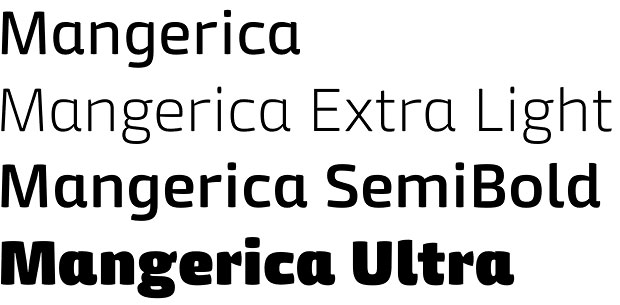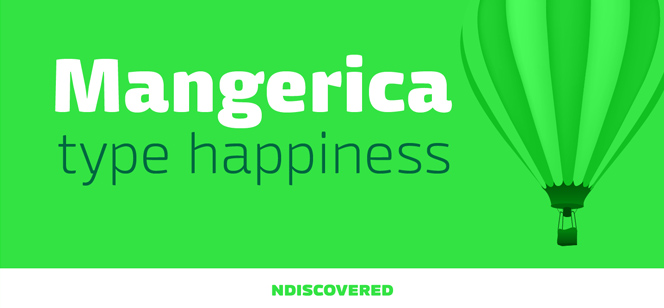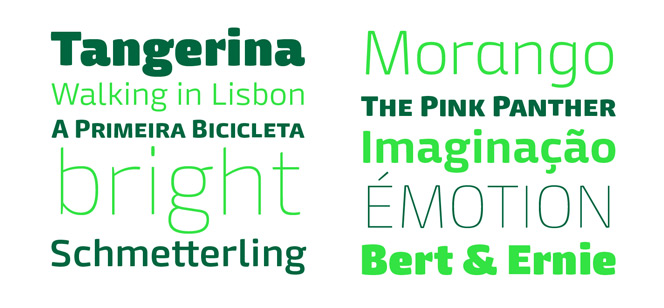
Mangerica font
Mangerica font is a sans-serif family represented in 9 weights. From Thin to Ultra Black Mangerica shows a skillful blending of different typographic styles – elegance, geometry and pure letterforms in light weights – while at the other end of the range we see high contrast ultra blacks with very distinguishable humanistic elements accompanied by naïve, cartoon-like look. All in all Mangerica is very recognizable typeface with excellent legibility throughout all weights and especially in the mid-range where the large x-height and low contrast make this font very easy-to-read even in very small sizes.
Mangerica is a font family with diverse use – from corporate web-site to editorial design Mangerica will be your best partner. This charming family is also appropriate choice for strong headlines, packaging, posters and t-shirts. Use the extra black weight for strong and prominent singe words e.g. brand names, logos etc., while the Thin & Light outlines will be your best choice for large text paragraphs or elegant headlines. A combination between Thin & Extra Black could be a very artistic solution no matter which of the outlines would dominate in your composition. The Mid-outlines will make your work with lots of text easier than expected. Add more diversity in your work by using a set of different OpenType features like small caps, ligatures, alternates, old style figures, and many other more.
We definitely miss the Italics here but we are optimistic to see them in the next release of the family. Till then try pairing Mangerica with low contrast script font, elegant italics or classic serifed uprights.
Mangerica font family is designed by Natanael Gama for Ndiscovered type foundry.